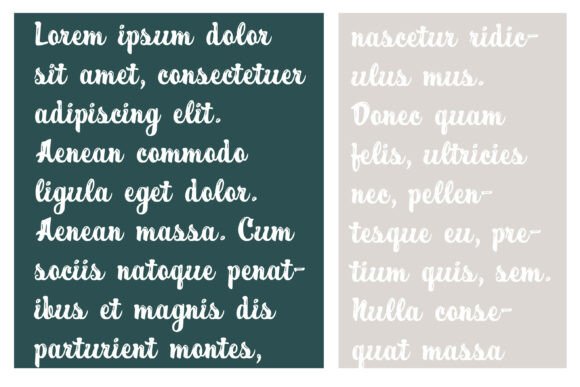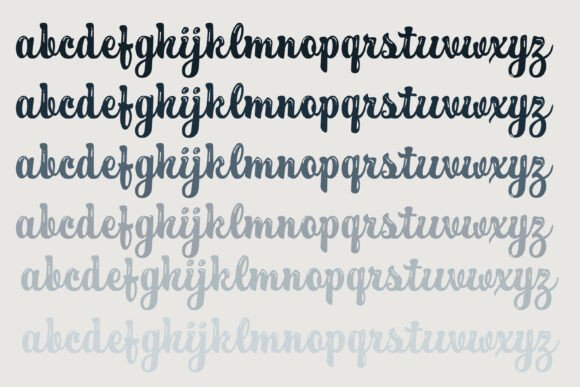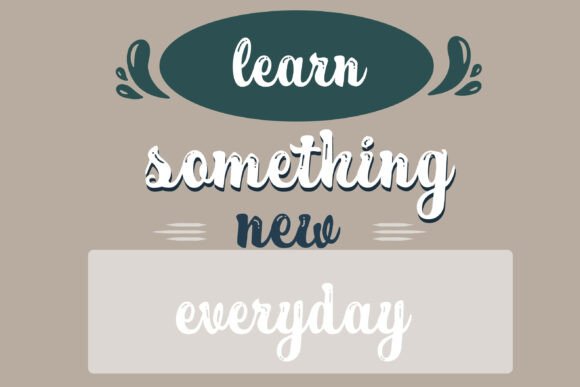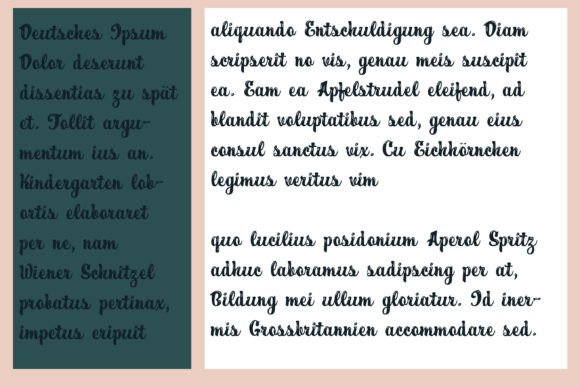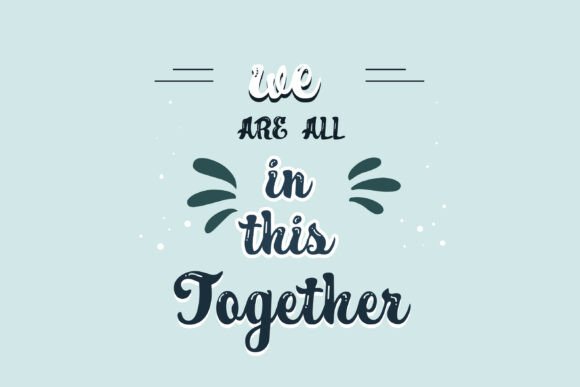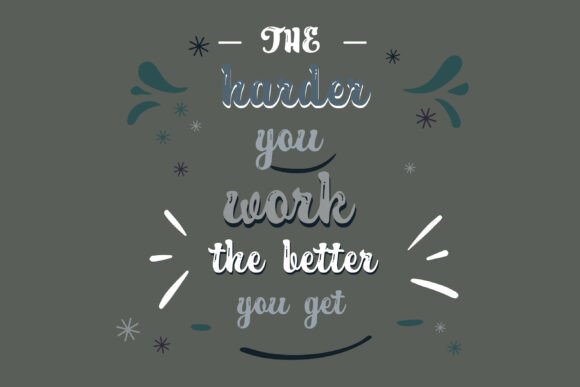
The Joy of Handwritten Typography
Have you ever stared at a blank piece of paper, waiting for inspiration to strike? Maybe you’re brainstorming ideas for a new project, or simply letting your pen wander across the page. For many creatives, those moments of free-flowing creativity are the spark that sets their imagination ablaze.
For designers seeking to add a touch of personality to their work, the Batter Glow Font is a treasure trove of whimsy and charm. This hand-crafted script combines thick and thin lines to create a unique, handwritten feel that’s perfect for invitations, greeting cards, and other special occasions.
With its solid version included, the Batter Glow Font offers designers a versatile tool for adding a personal touch to their projects. Whether you’re looking to create a formal or informal atmosphere, this font is sure to bring a smile to your clients’ faces and a touch of warmth to their hearts.
Batter Glow Font Key Features
- Font Family: Batter Glow is a unique, hand-drawn font designed to resemble a glowing effect, making it perfect for creating eye-catching and vibrant designs.
- Character Set: Includes a wide range of characters, including uppercase and lowercase letters, numbers, and punctuation marks, as well as a selection of special characters and symbols.
- Unique Characteristics: Batter Glow features a distinctive, hand-drawn style with a warm, glowing effect that adds a touch of personality to any design.
Batter Glow Font Review
Overall, I think Batter Glow Font is an interesting addition to any design project, but it’s not without its quirks.
- ✨ Unique and eye-catching aesthetic: Batter Glow Font’s blend of modern and distressed elements can add a lot of character to your designs.
- ✨ Wide range of applications: From logos to headings, this font can be used in a variety of contexts to great effect.
- ✨ Excellent for creating a sense of nostalgia: The font’s retro vibe can be perfect for projects that require a vintage or retro feel.
- ⚠️ Limited legibility at small sizes: While the font looks great at larger sizes, it can become difficult to read at smaller sizes.
- ⚠️ May not be suitable for body text: The font’s unique style may not be ideal for large blocks of text, where readability is crucial.
Overall impression:
Batter Glow Font is a great choice for designers who want to add a bit of personality to their projects. While it may not be suitable for every project, it’s a versatile font that can add a lot of character to your designs. Just be mindful of its limitations and use it sparingly.
- Creating eye-catching headlines and titles.
- Adding a retro or vintage touch to your design.
- Highlighting important information or calls-to-action.